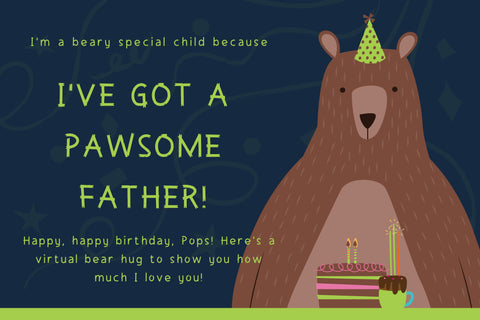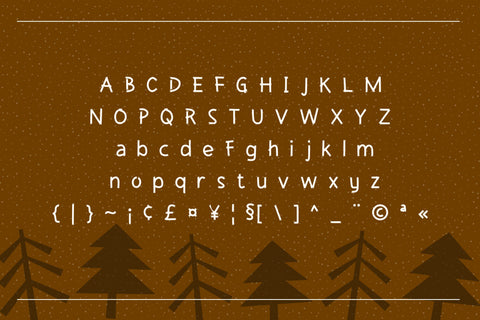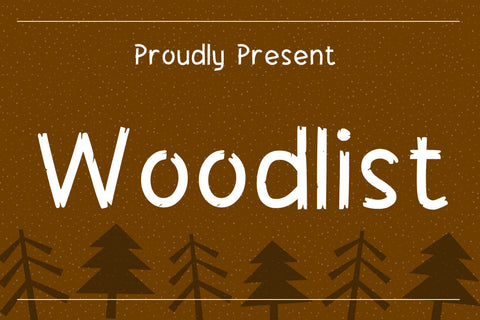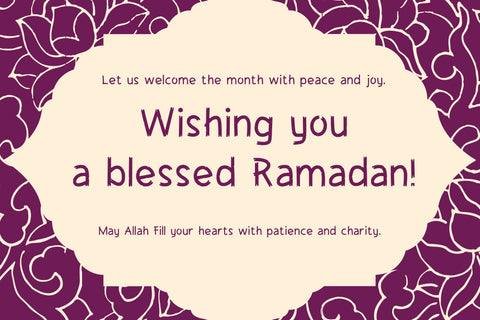
Woodlist Font
Woodlist is friendly and wood-themed display font. Its natural and unique style makes it incredibly fitting to a large pool of designs. Have fun with this beautiful font and explore its endless variations.